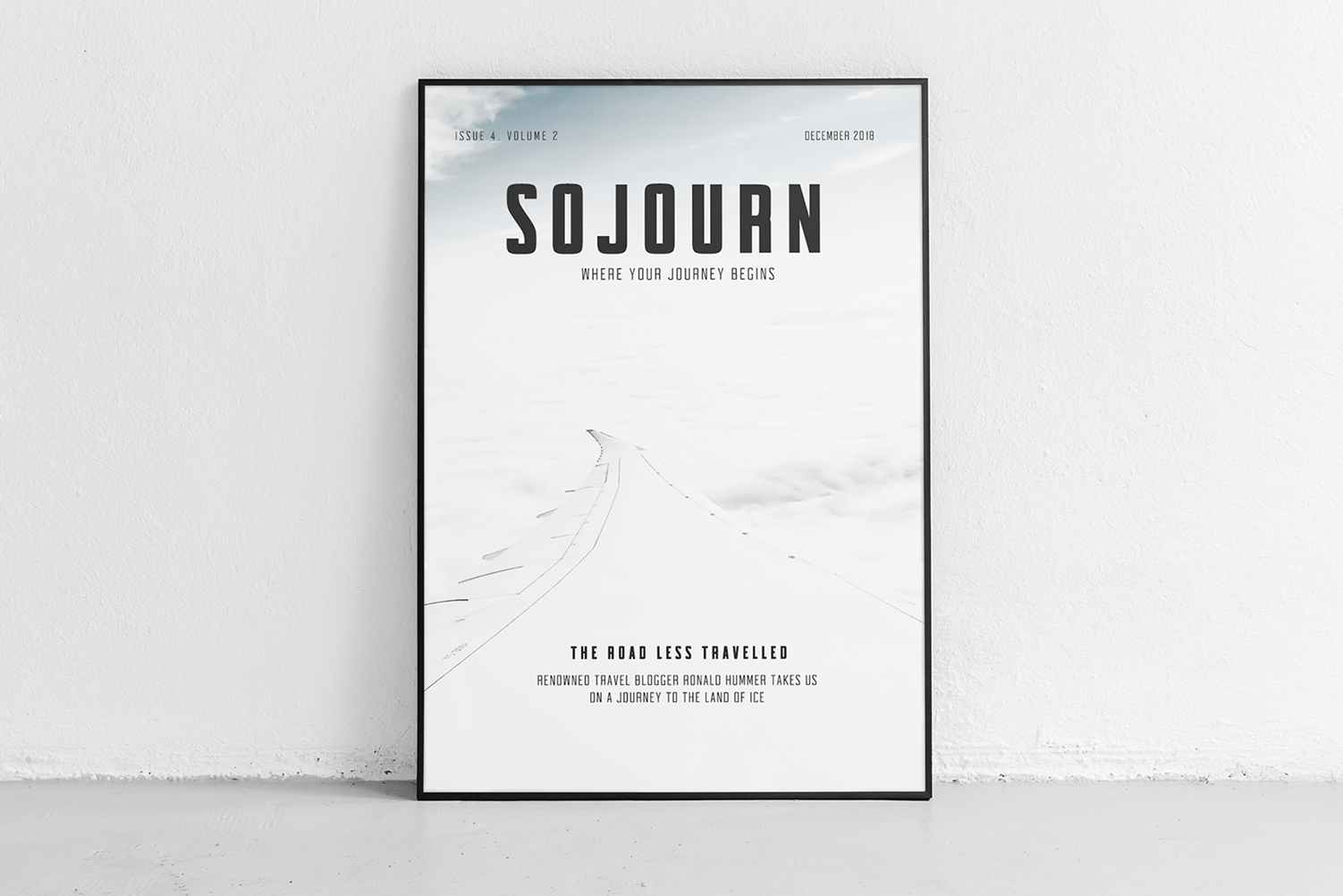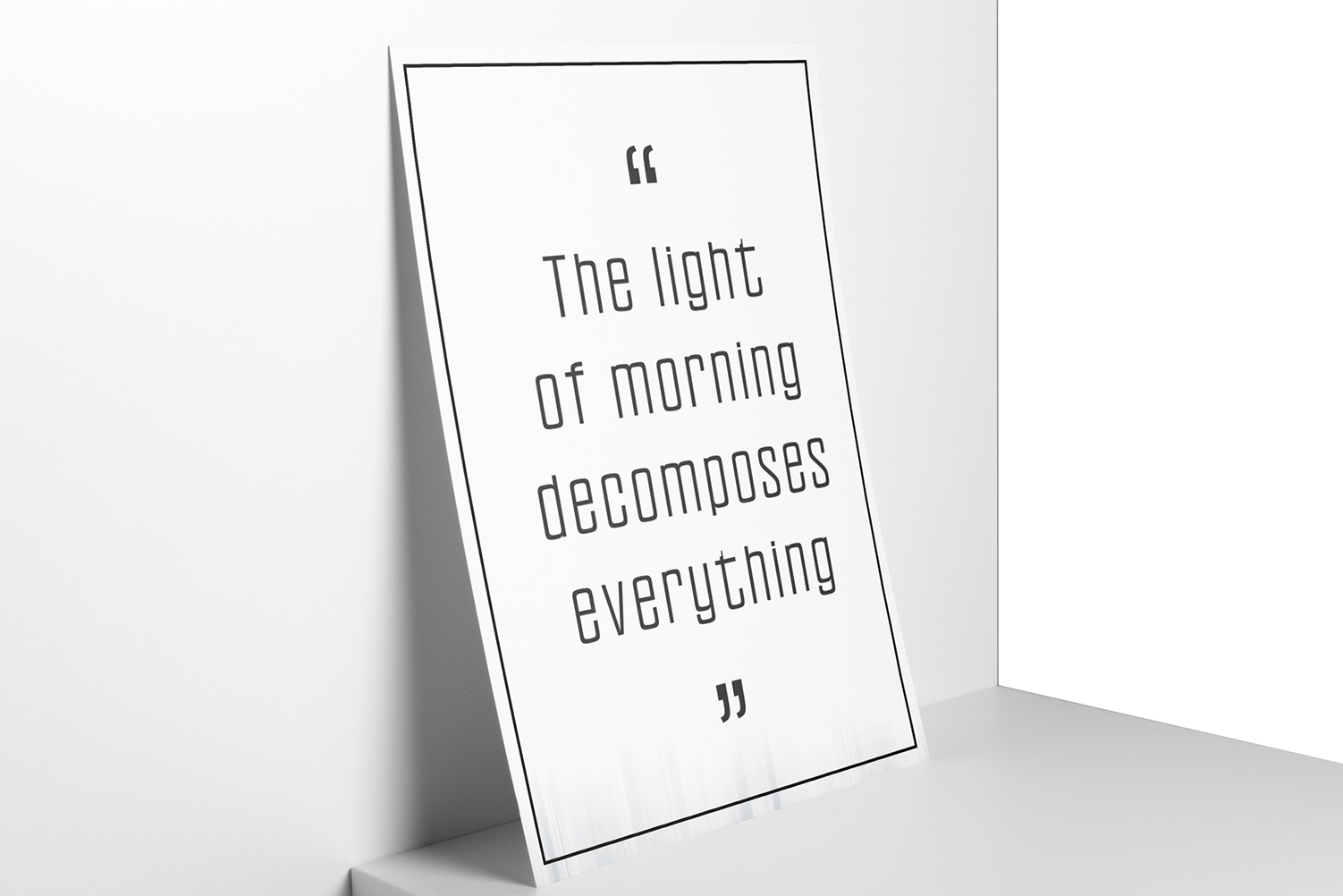
Introduction to Sheylla Font
Have you ever stared at a blank canvas, eager to bring your creative vision to life, only to be held back by the perfect font? For designers, finding the right typography can be the difference between a great project and a mediocre one. This is where the Sheylla Font comes in – a clean and simple geometric font in 4 weights that’s sure to elevate any design.
With its versatility and modernity, Sheylla Font is the perfect design resource for a wide range of projects and creative endeavors. Whether you’re working on a high-quality branding campaign or a free download design template, this font is sure to provide the perfect touch. Its transparent background and clean lines make it an ideal choice for designers who value simplicity and elegance in their work.
Key Features of Sheylla Font
- It features a transparent background, allowing for seamless integration into various design elements.
- The font includes multiple styles and weights, making it a versatile design resource for a wide range of creative projects.
- It supports a wide range of languages, making it an ideal choice for international design projects.
- Sheylla Font is available in a single size, but it’s highly scalable, allowing for easy resizing without compromising on quality.
- Its unique characteristics, such as the elegant curves and subtle texture, make it a standout design resource for any creative project.
Honest Review: Sheylla Font
I recently had the chance to try out the Sheylla Font, and I must say it’s been a game-changer for my creative projects. The font is completely free to download, which is a huge plus in my book.
- ✨ High-quality design: The font is incredibly well-designed, with clean lines and a professional look that’s perfect for any project.
- ✨ Transparent background: I love that the font comes with a transparent background, making it easy to customize and integrate into any design.
- ✨ Versatile: The font is perfect for a wide range of creative projects, from business cards to social media graphics.
Overall, I’m really impressed with the Sheylla Font. It’s a high-quality design resource that’s perfect for any creative project. While it may have some limitations, I think it’s well worth the free download. If you’re looking for a great font to add some polish to your designs, I’d definitely recommend giving it a try.
Tips for Getting the Most Out of Sheylla Font
Experiment with different font sizes and colors to find the perfect look for your design. Use Sheylla Font in combination with other design elements to create a visually appealing project. You can also use Sheylla Font to create a cohesive brand identity.
Sheylla Font is a versatile design resource that can be used in a variety of creative projects, including logos, business cards, and marketing materials. Its transparent background makes it easy to use in designs that require layering or compositing.